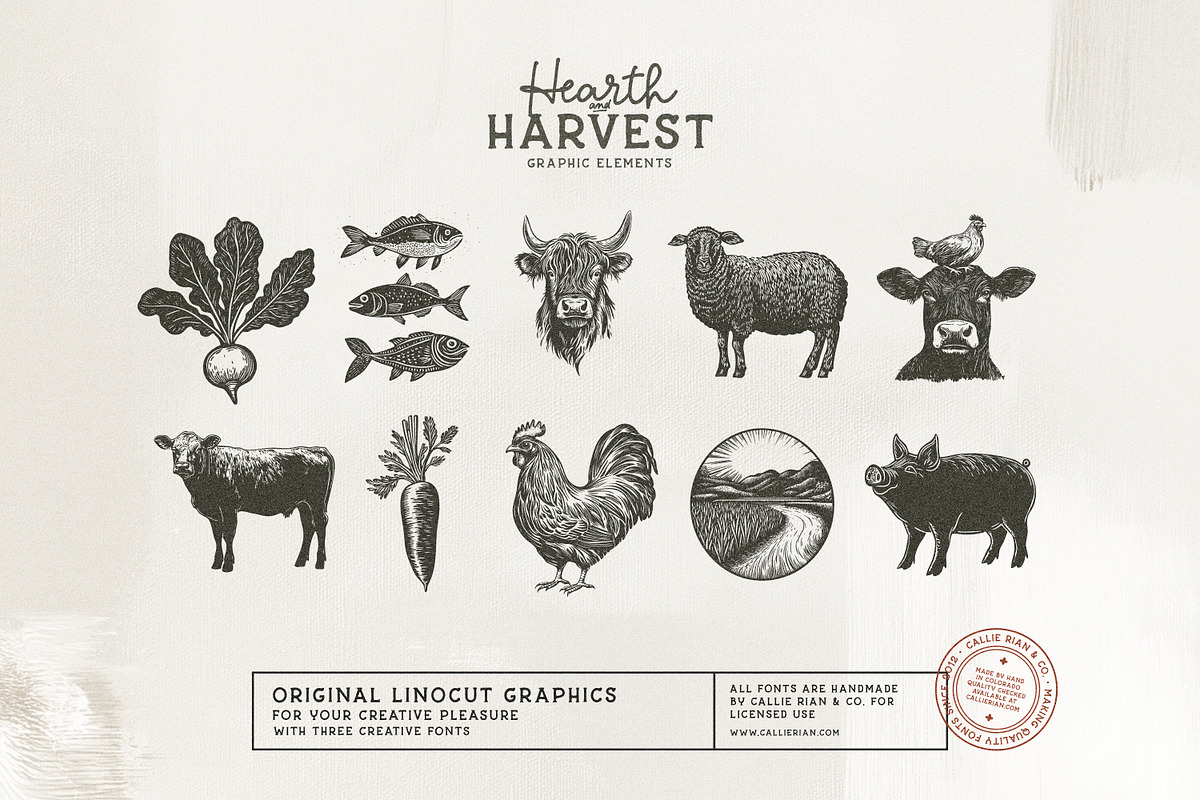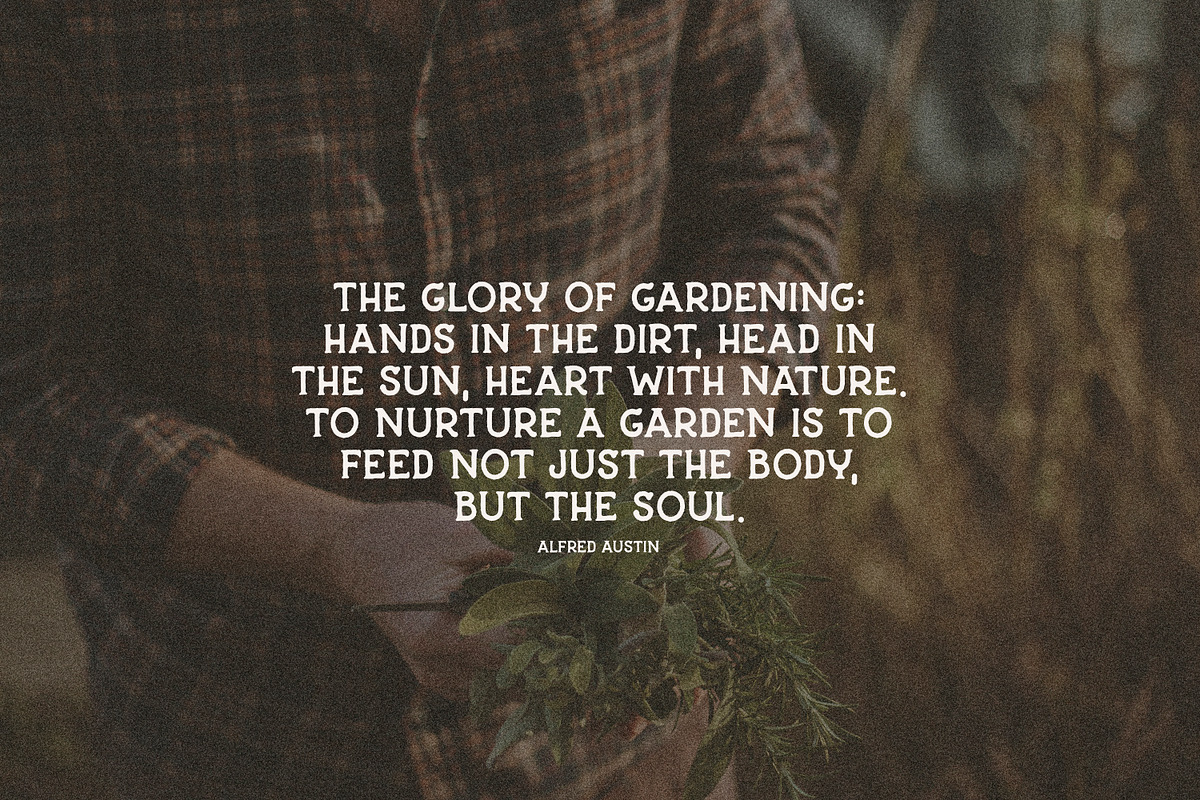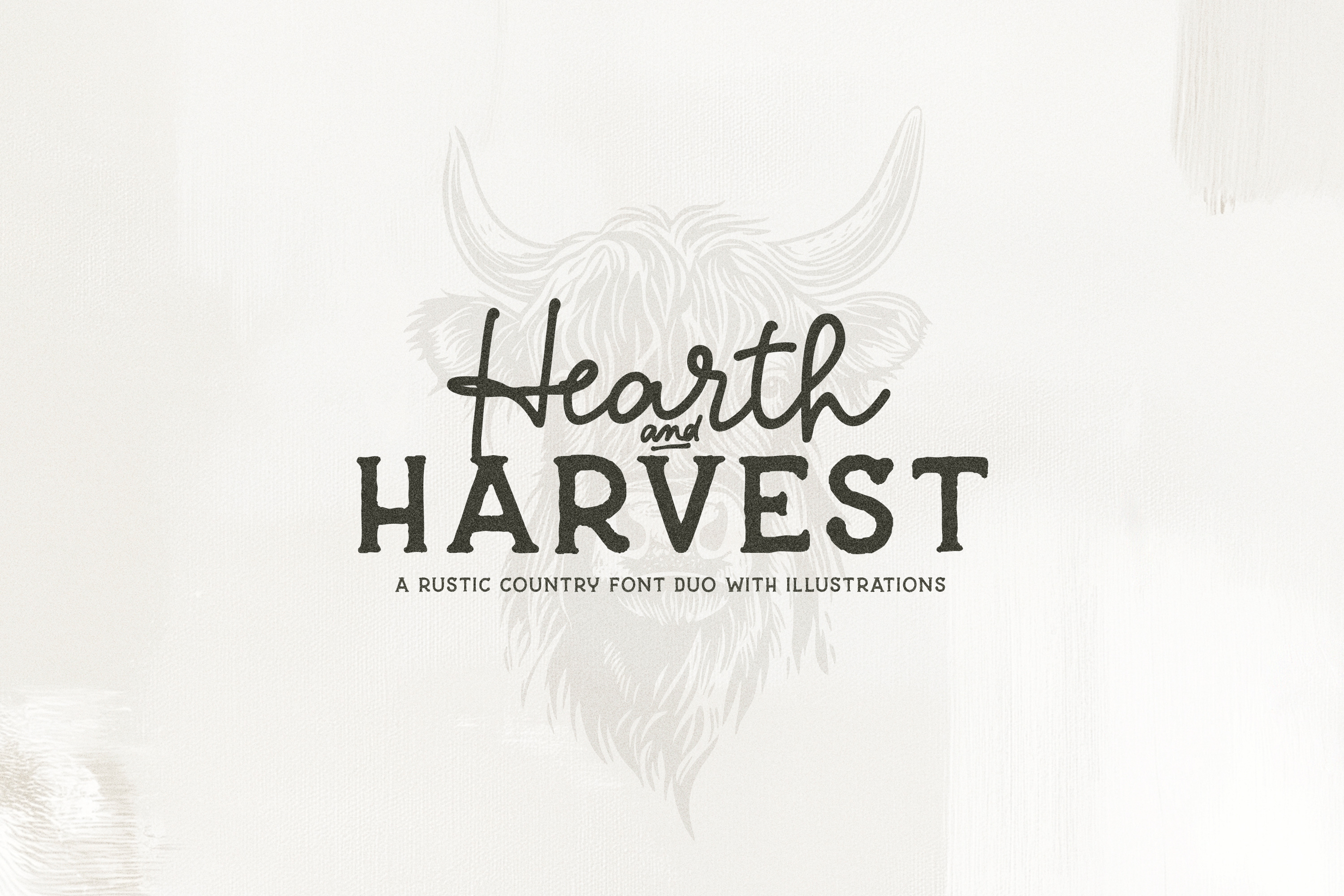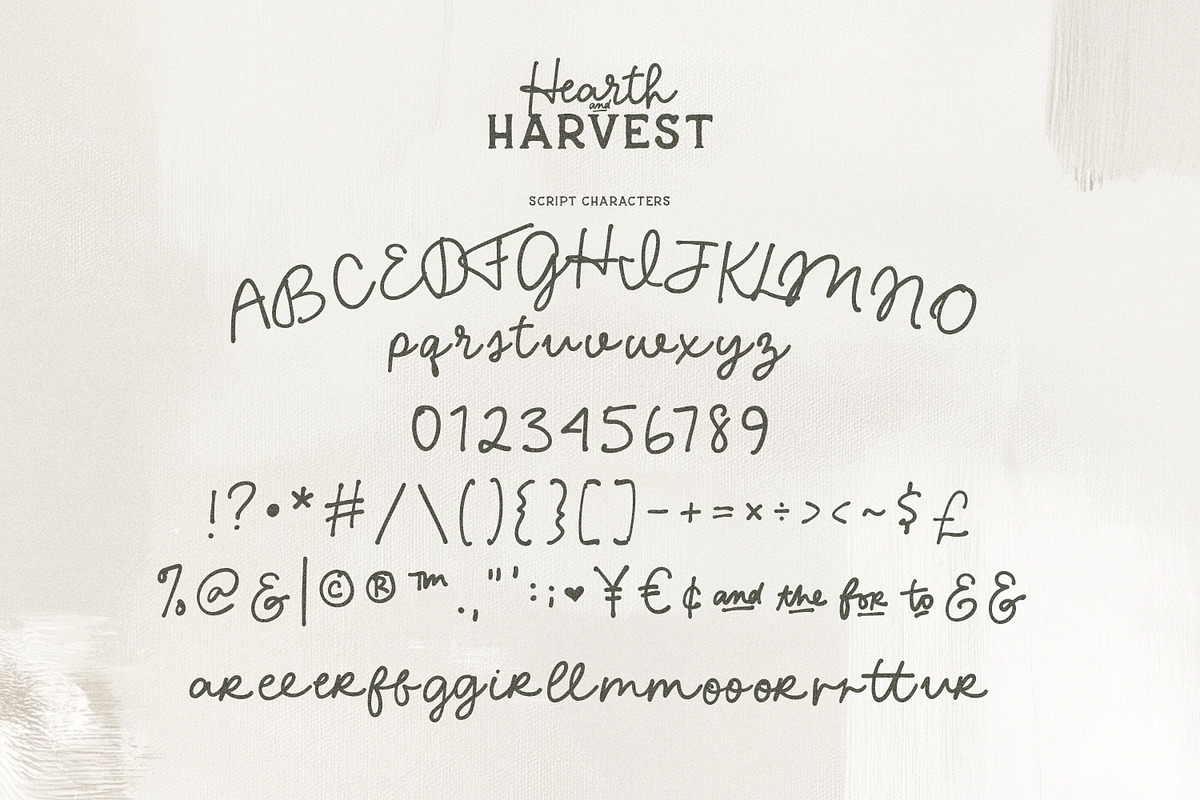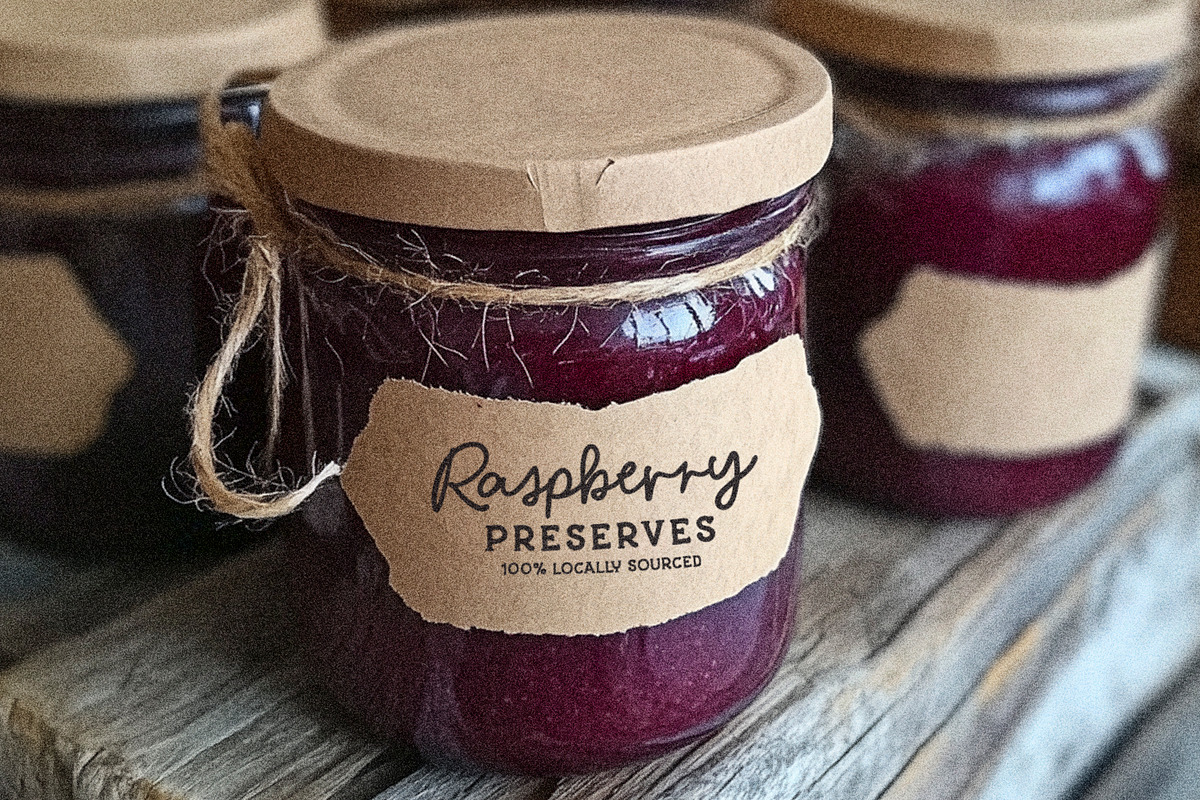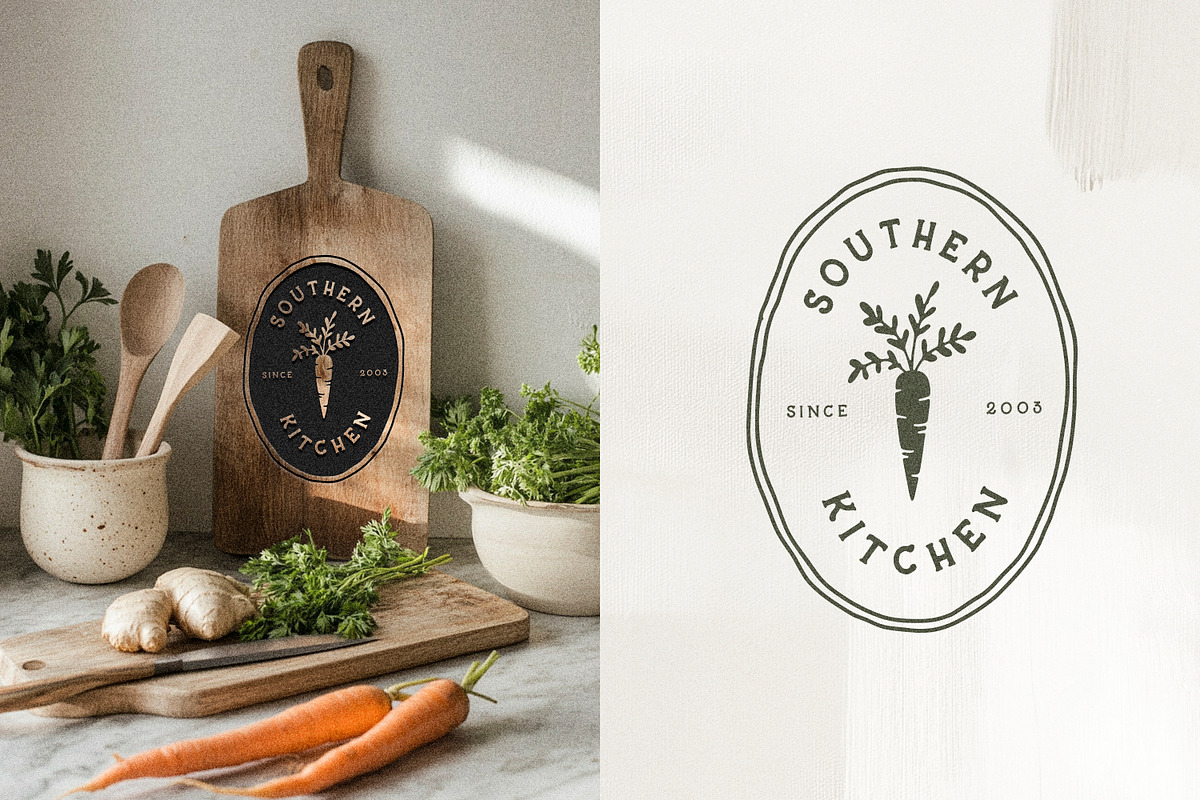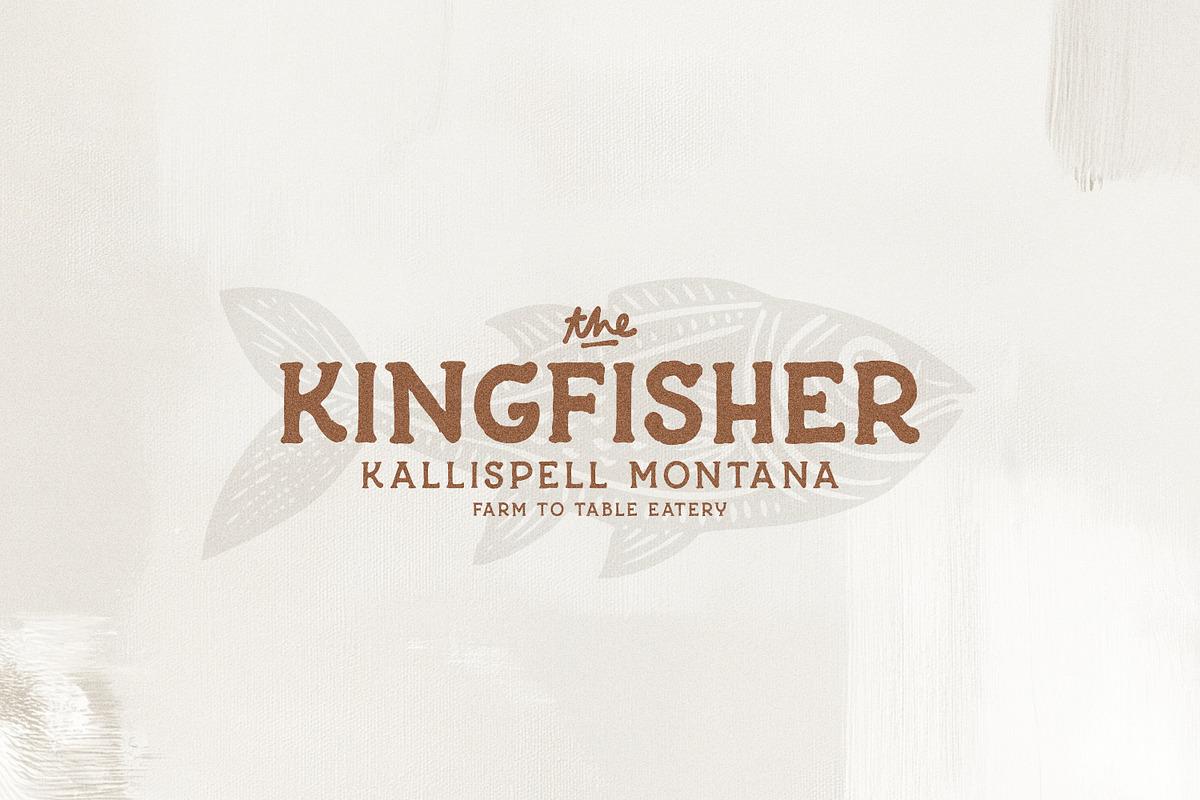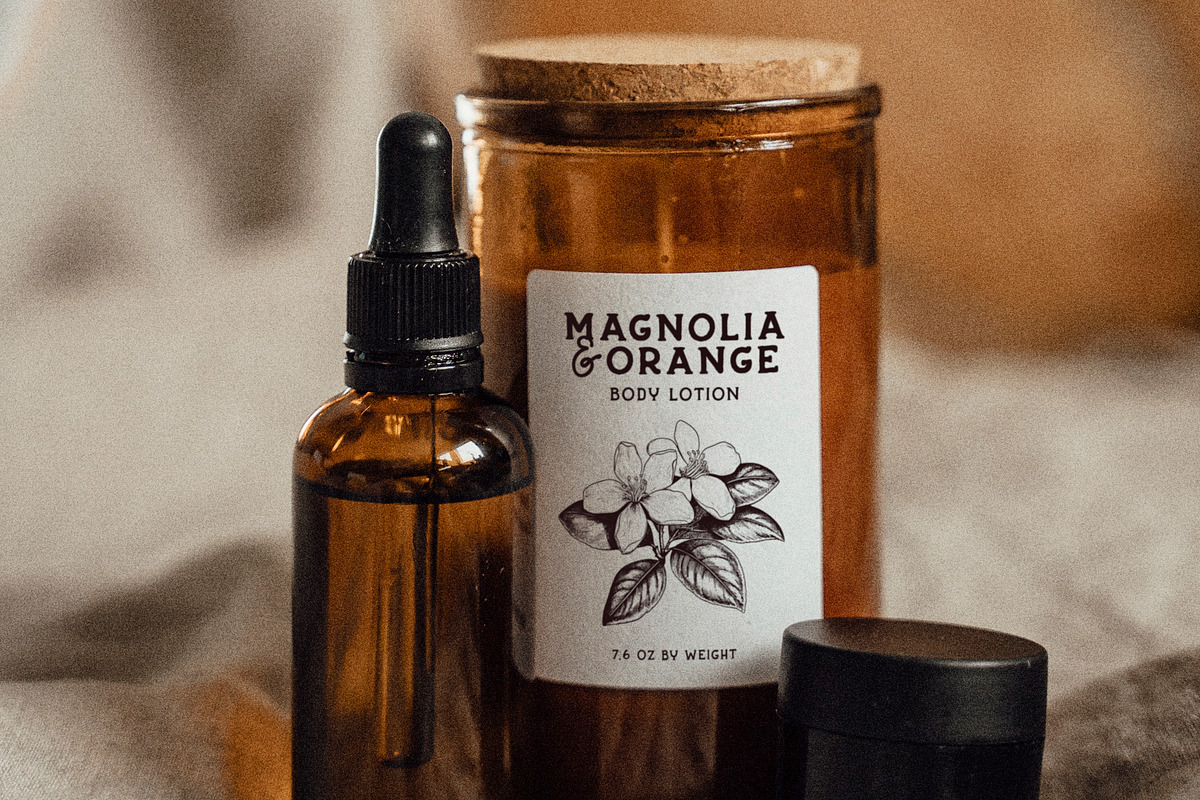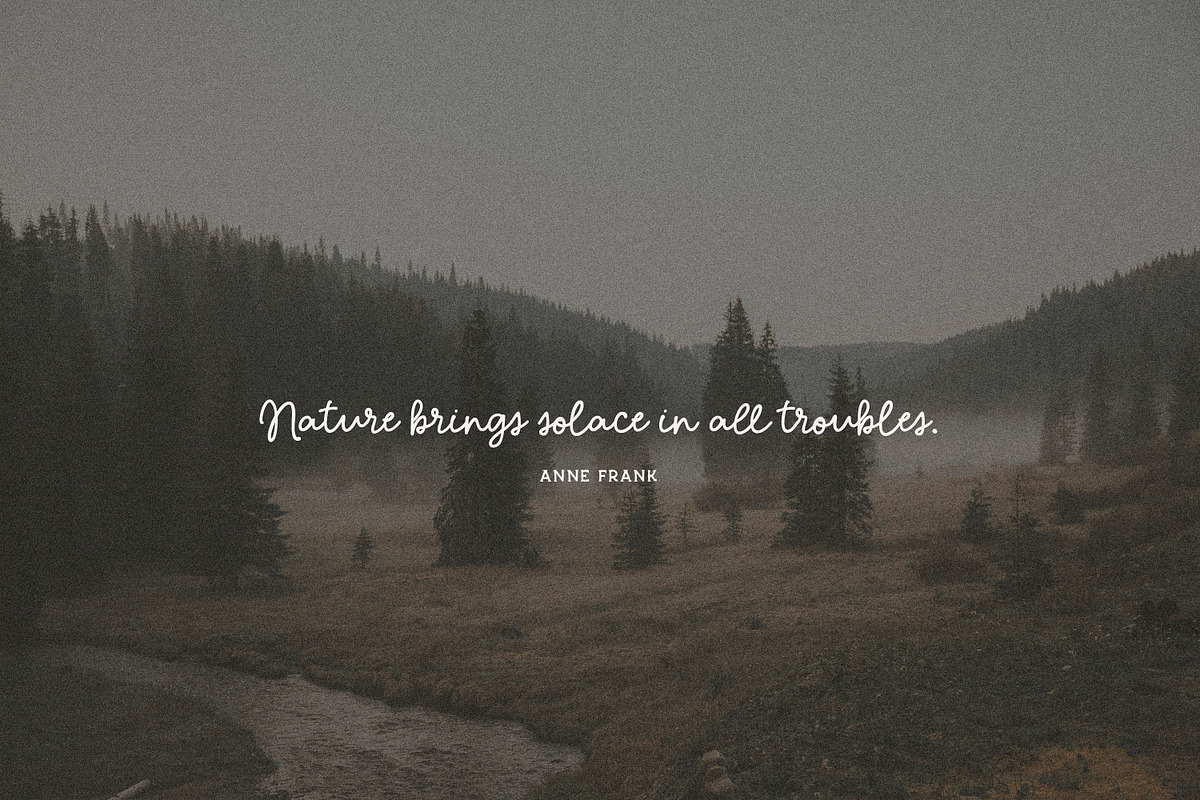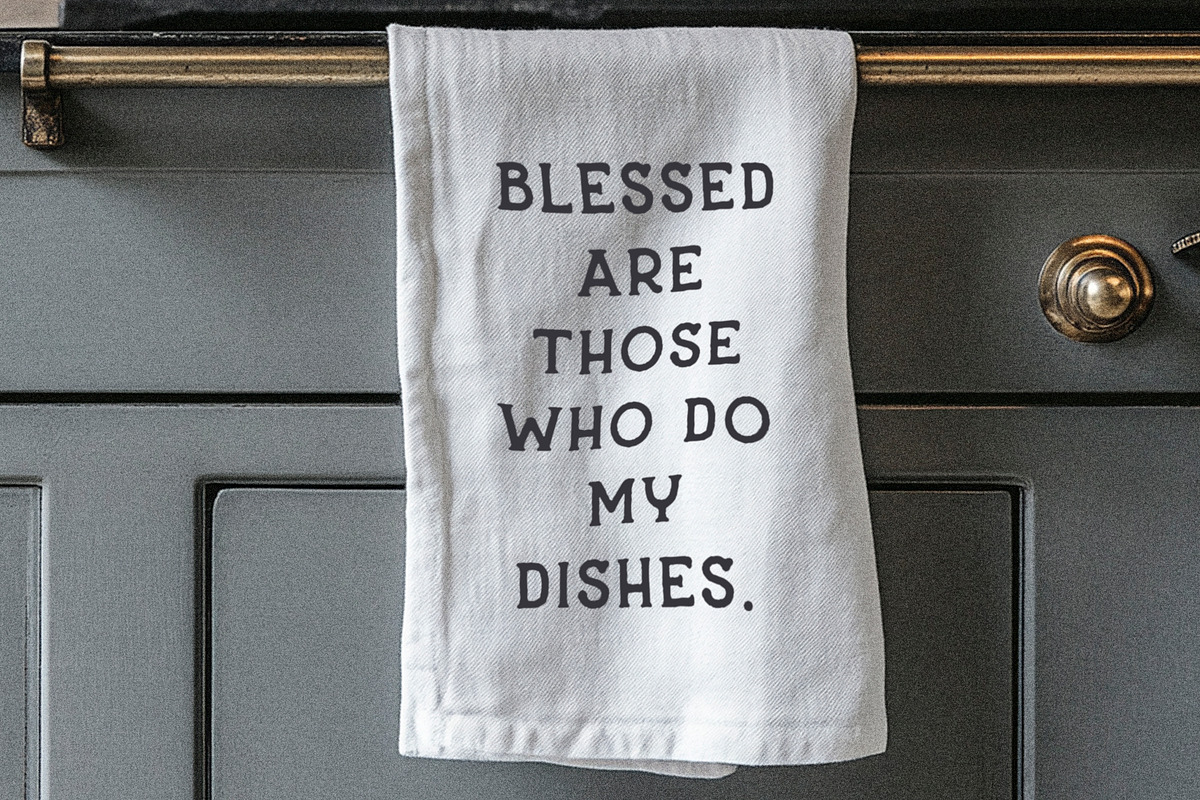
Hearth & Harvest Rustic Font Duo
Introducing Hearth & Harvest, a hand drawn Serif & Script family with a rustic touch. Enjoy two serif versions; regular and bold, as well as simple script for logos, quotes, apparel, magazines and more! Plus, I’ve included a set of linocut graphics to compliment your charming new fonts. Hearth & Harvest is a one-stop-shop for everything from editorials to packaging.
- Please Note these fonts are handwritten , so the edges might be a little irregular. The Script Version will work with Circuit or Silhouette, but I wouldn’t try and cut the Rustic Serifs.